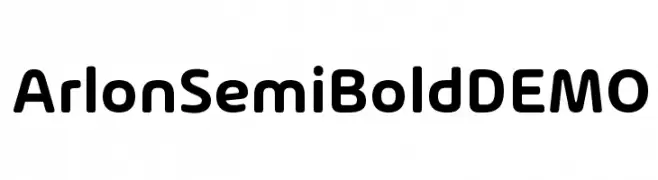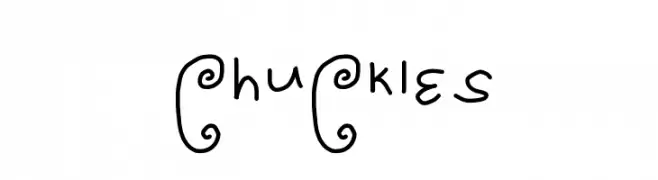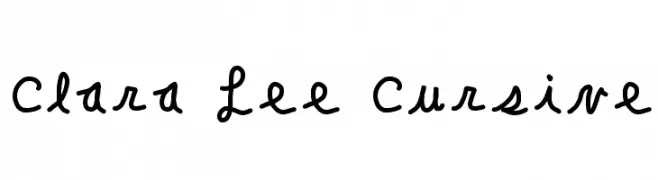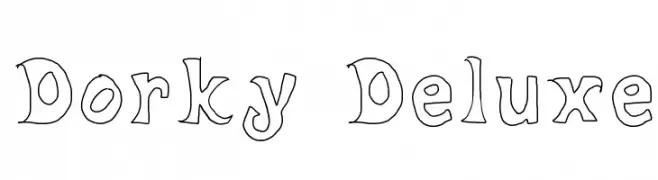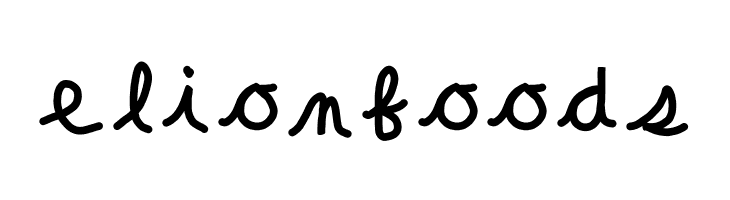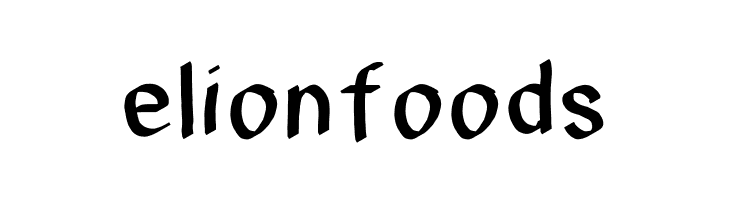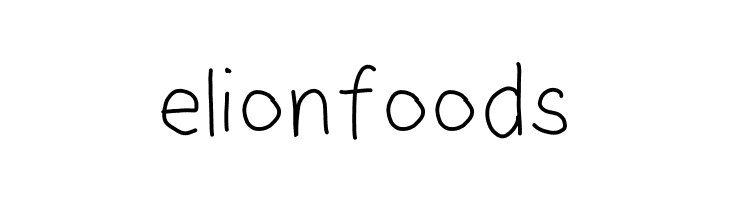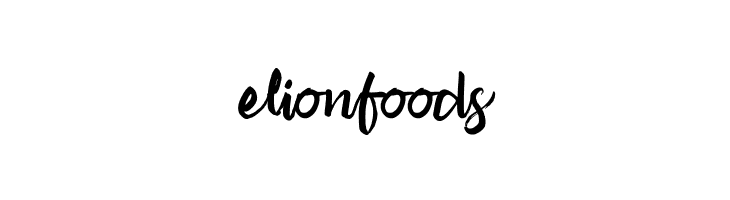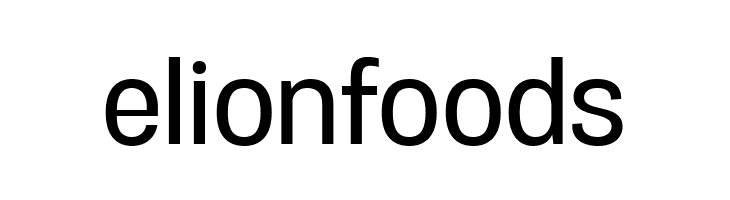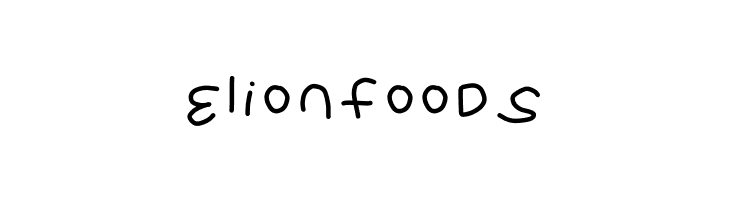
• Clara Lee Cursive
A playful cursive font with smooth, rounded strokes and a consistent slant.
• Fombre
A bold, brush-style handwritten font with a lively and informal appearance.
• HM Keokuk
A playful, handwritten font with a casual and friendly style.
• Jaymse
A playful, informal handwritten font with a lively and dynamic style.
• Sweety
A playful, handwritten font with smooth, flowing strokes and a casual style.
• Rounded Sans
A modern, rounded sans-serif font with bold, clean lines.
• Arlon SemiBold DEMO
A modern, rounded sans-serif font with smooth curves and a clean look.
• Specify PERSONAL Normal Medium
A modern, clean sans-serif font with uniform strokes and excellent readability.
• ChuCkles
A whimsical, hand-drawn font with a playful and cartoonish style.
• Dorky Deluxe
A playful, hand-drawn font with wavy, irregular lines and a whimsical style.